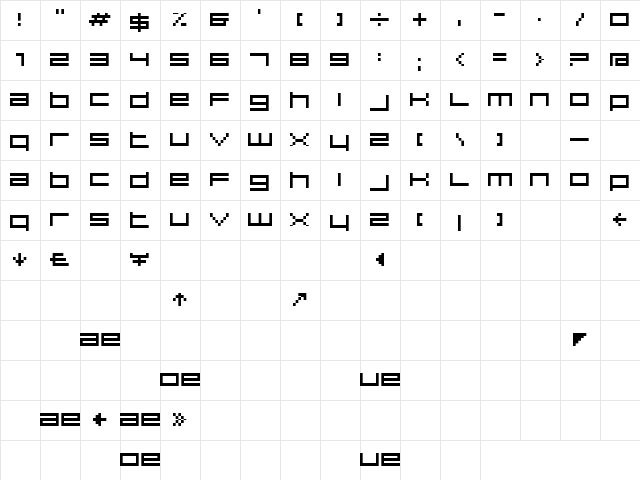
HISCORE Regular
Design Context for HISCORE Typeface
HISCORE offers clean, dependable letterforms without strong stylistic allegiance, making it a practical choice for designers who need flexibility.